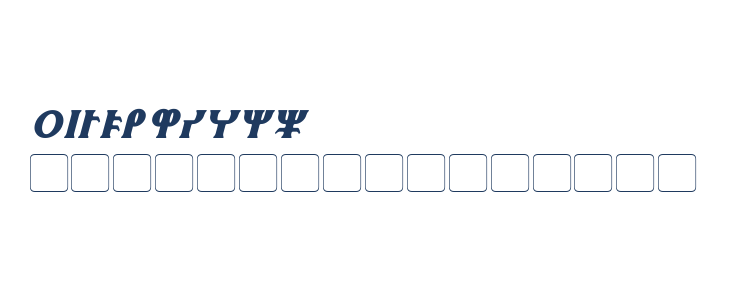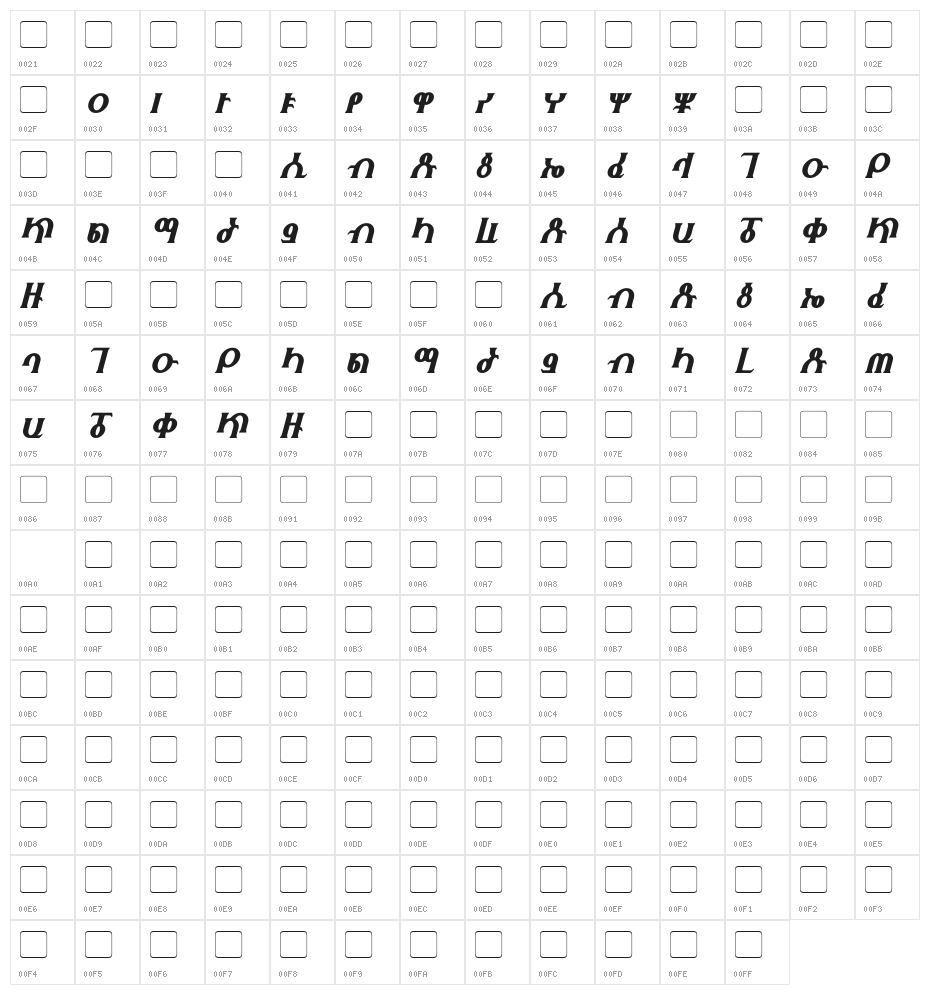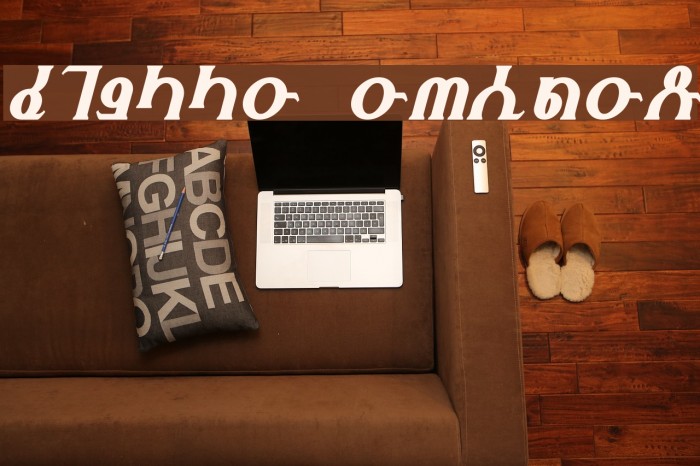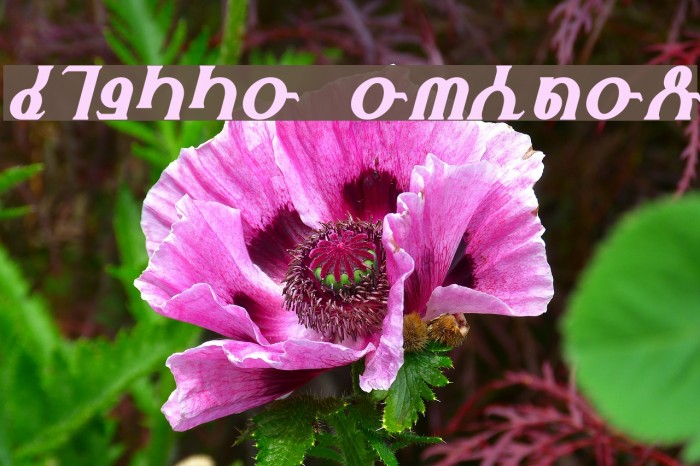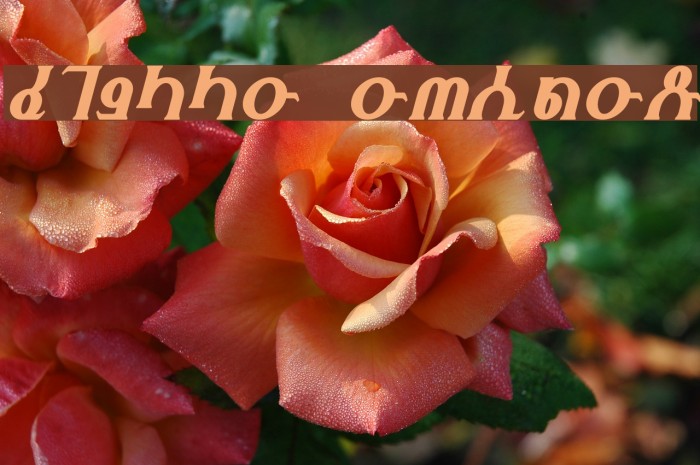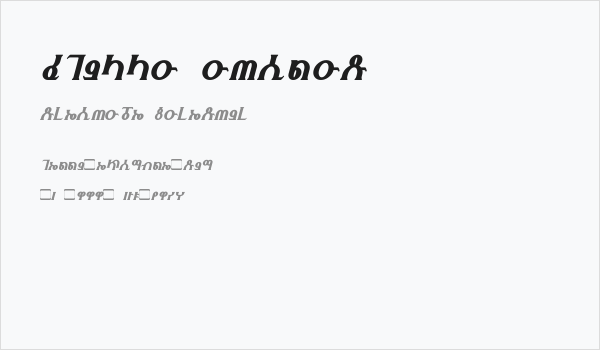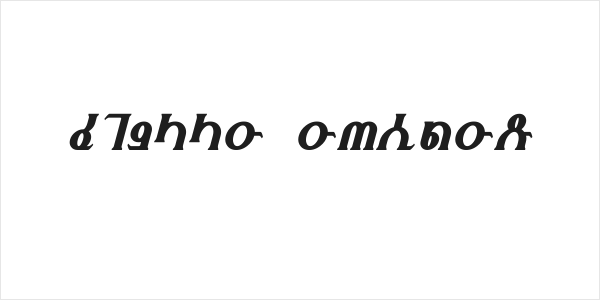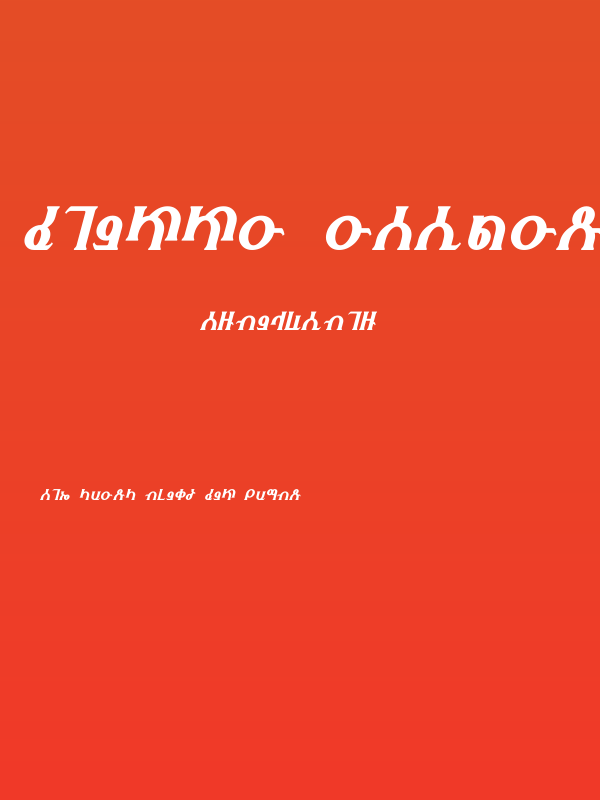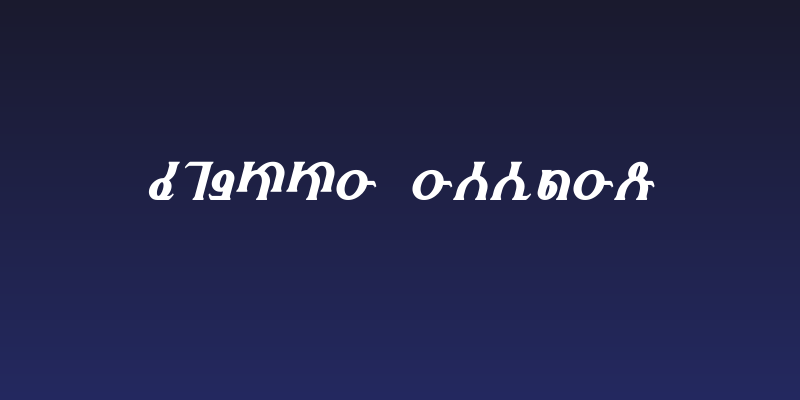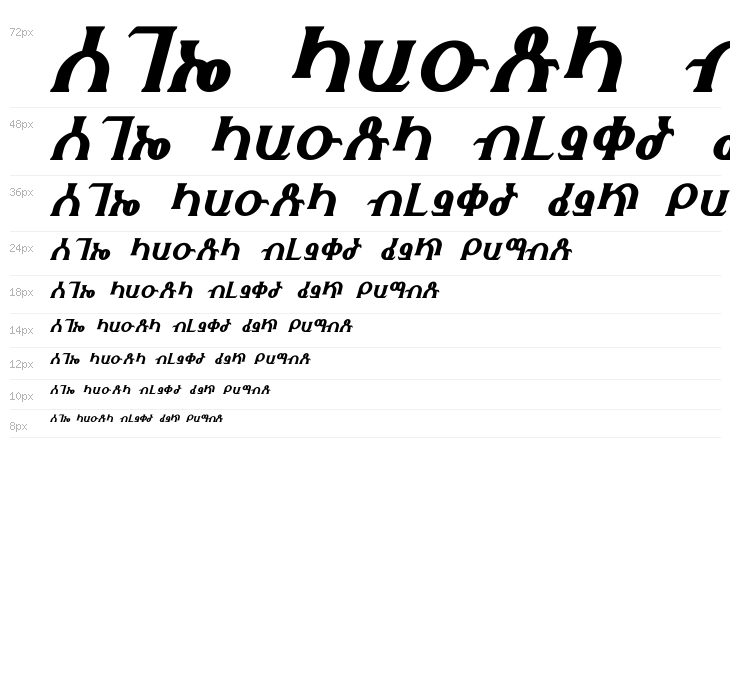
Fhokki Italic Font
Fhokki Italic Description
This font features a unique and decorative style, characterized by its bold and italicized appearance. The characters exhibit a flowing, cursive-like design with pronounced curves and flourishes, giving it an artistic and expressive feel. The strokes are thick and consistent, providing a strong visual impact. The overall design is reminiscent of calligraphy, with a modern twist that makes it suitable for creative and eye-catching projects. The font's distinctiveness lies in its ability to convey elegance and sophistication while maintaining readability.